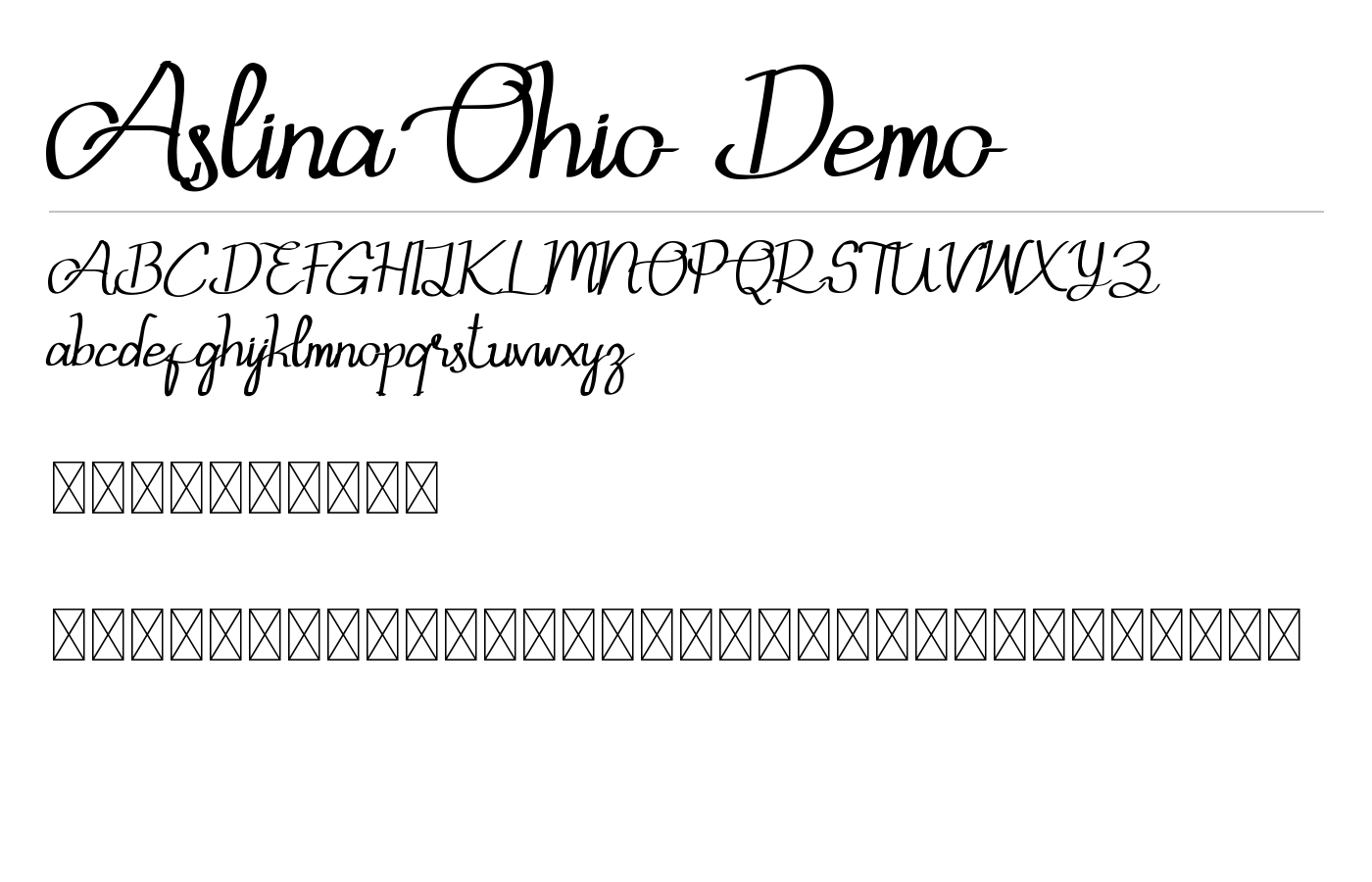
Aslina Ohio Demo is an elegant script font with smooth, flowing strokes that evoke a refined, handwritten charm. Its slender letterforms with subtle variations in stroke width give it a graceful and sophisticated personality, making it ideal for invitations, branding, and any design seeking a personal, stylish touch. This font works best in headline or display settings where its delicate curves can shine.
Aslina Ohio Demo Font
About Aslina Ohio Demo Font
| Font family | Aslina Ohio Demo Font |
| Designer | Aghnia Nurul Yasmine & Suci Anita |